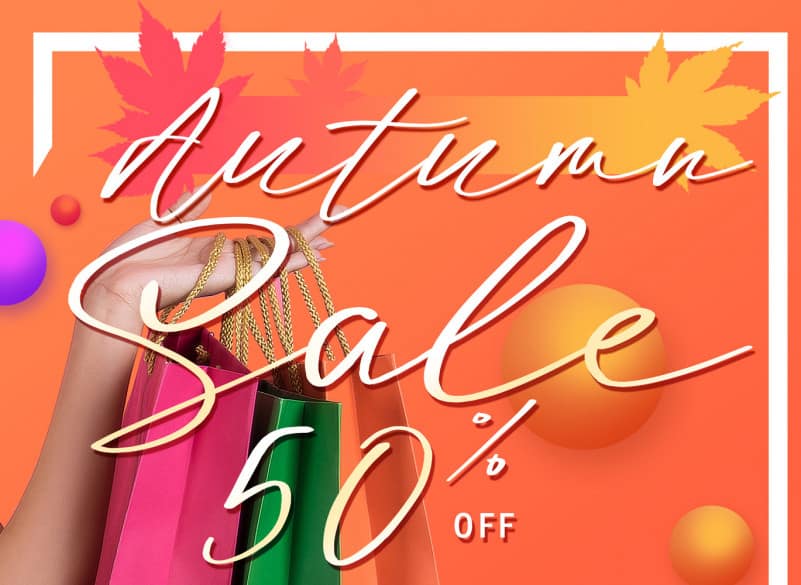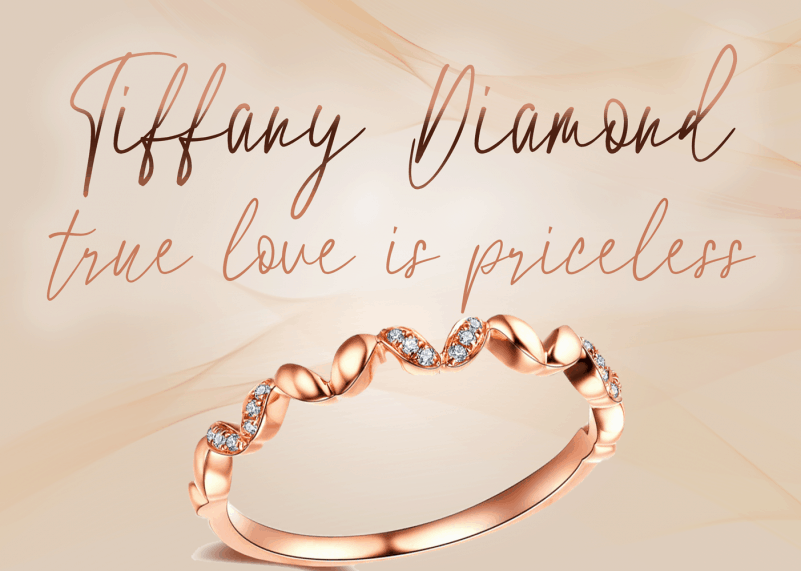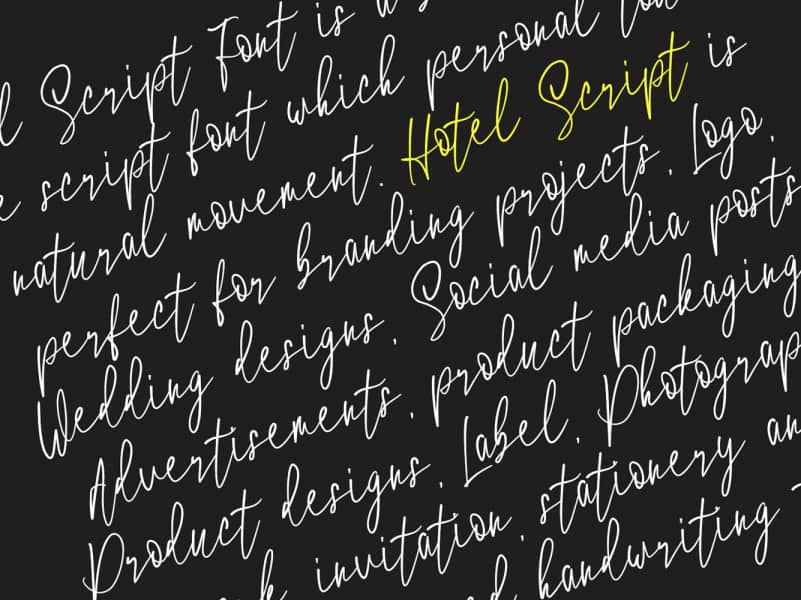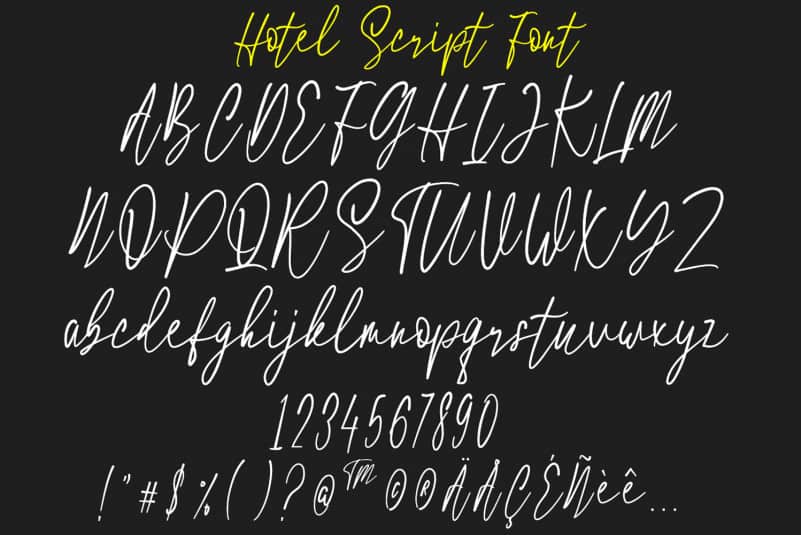
Hotel Handwritten Font is a beautiful signature script font which personal touch of natural movement. Hotel Script is perfect for branding projects, Logo, Wedding designs, Social media posts, Advertisements, product packaging, Product designs, Label, Photography, Watermark, invitation, stationery and any projects that need handwriting taste.
Hotel Handwritten Font Features :
- Upper + Lowercase Letters
- Numbers + Punctuation
- OpenType features
- Multilingual support